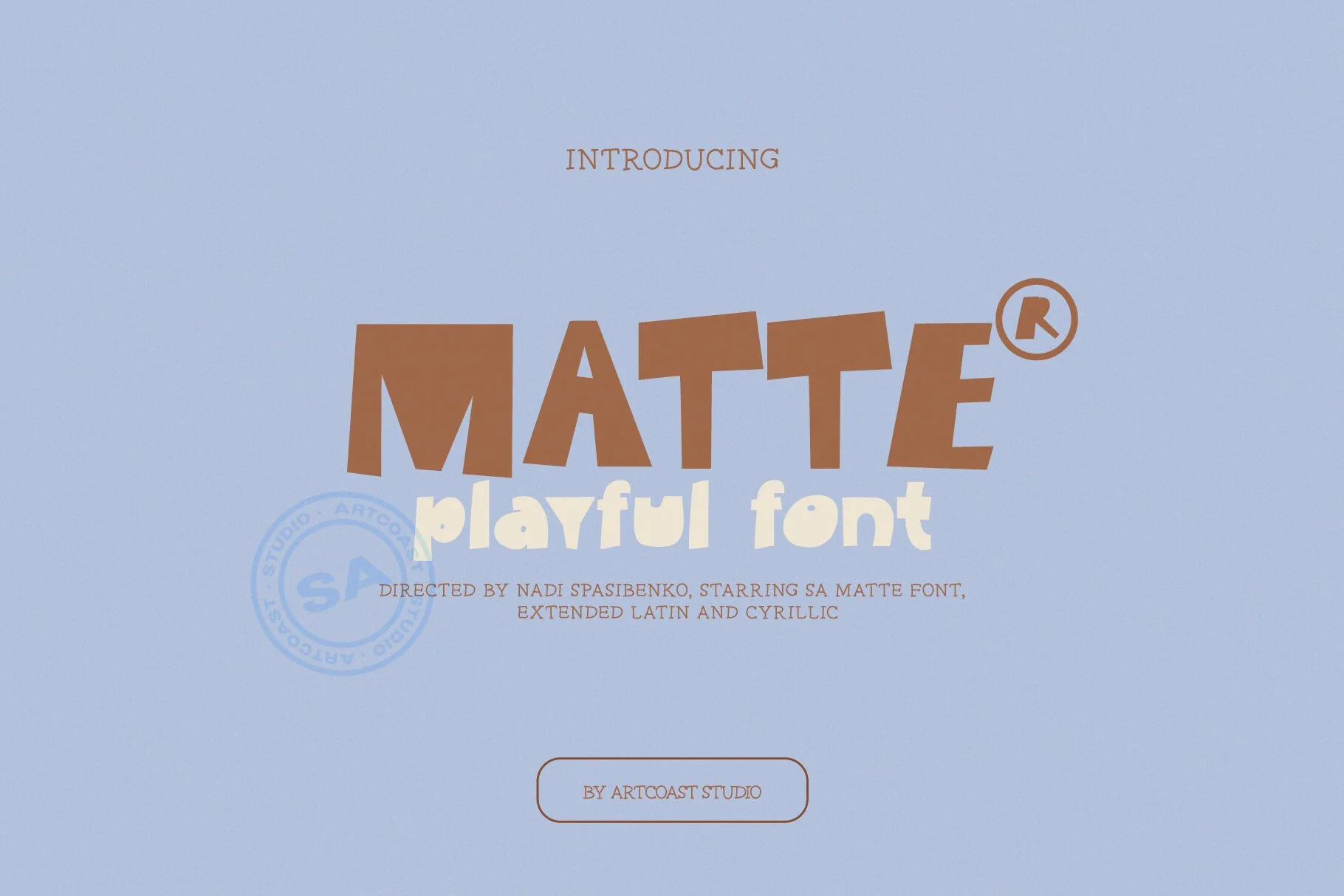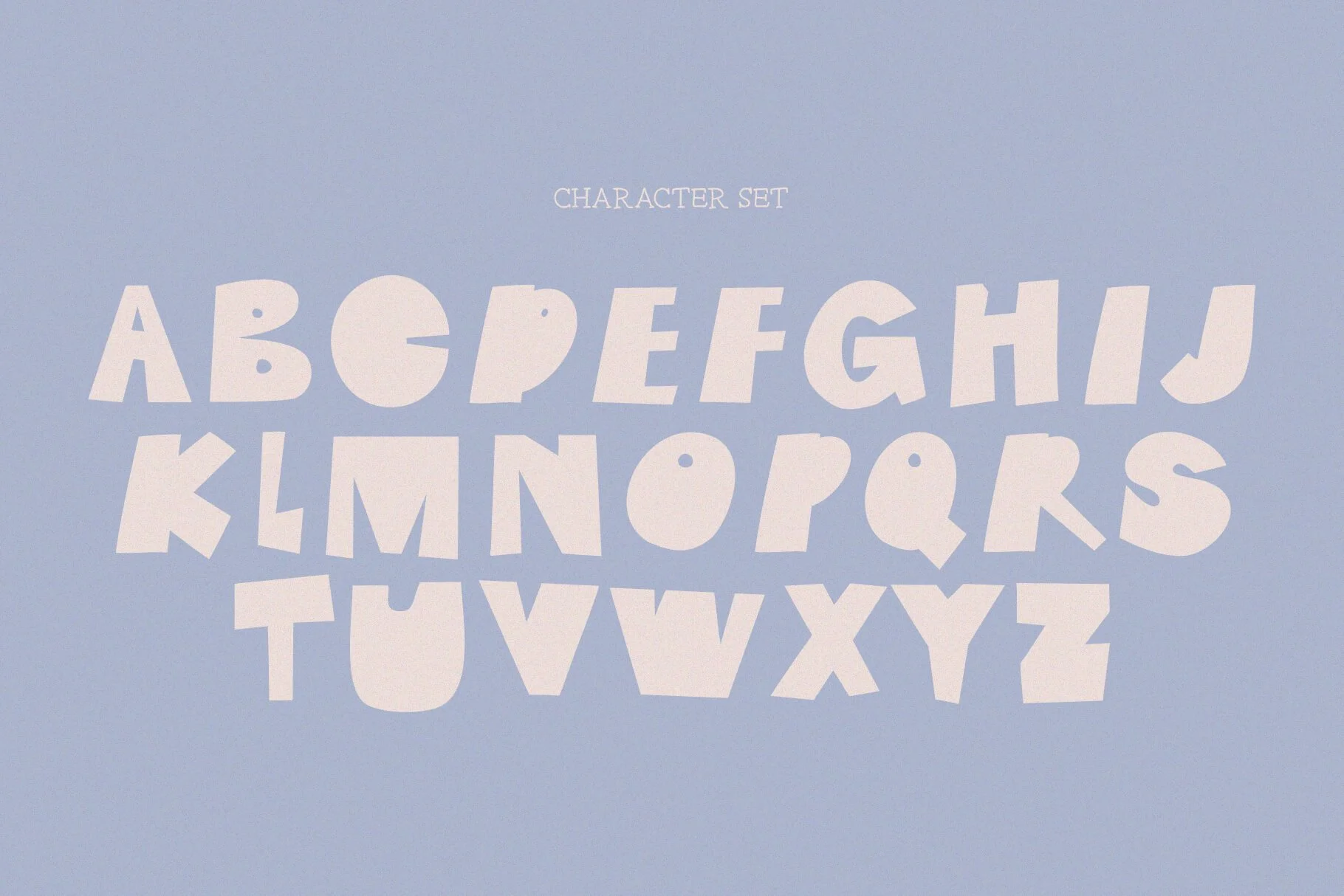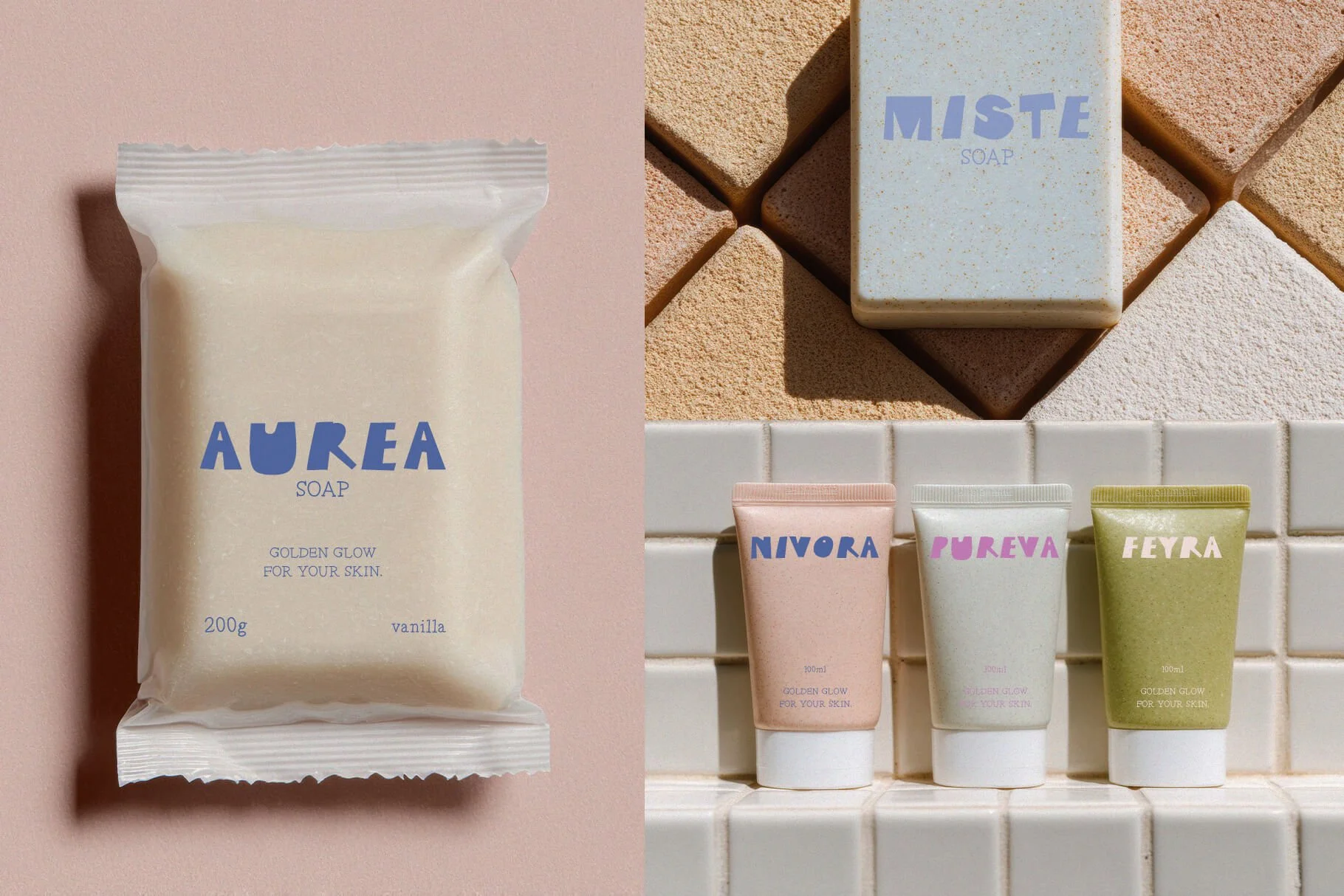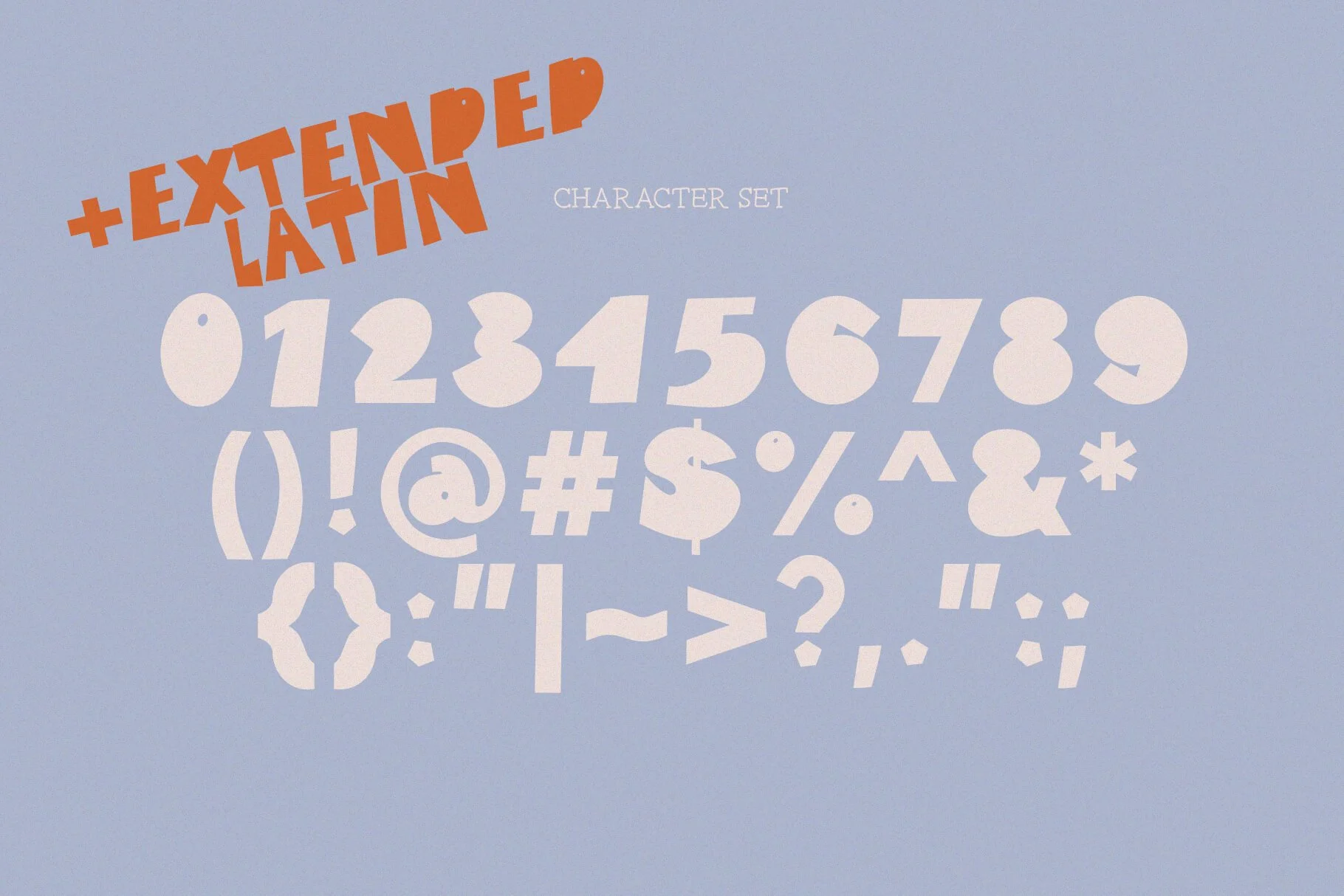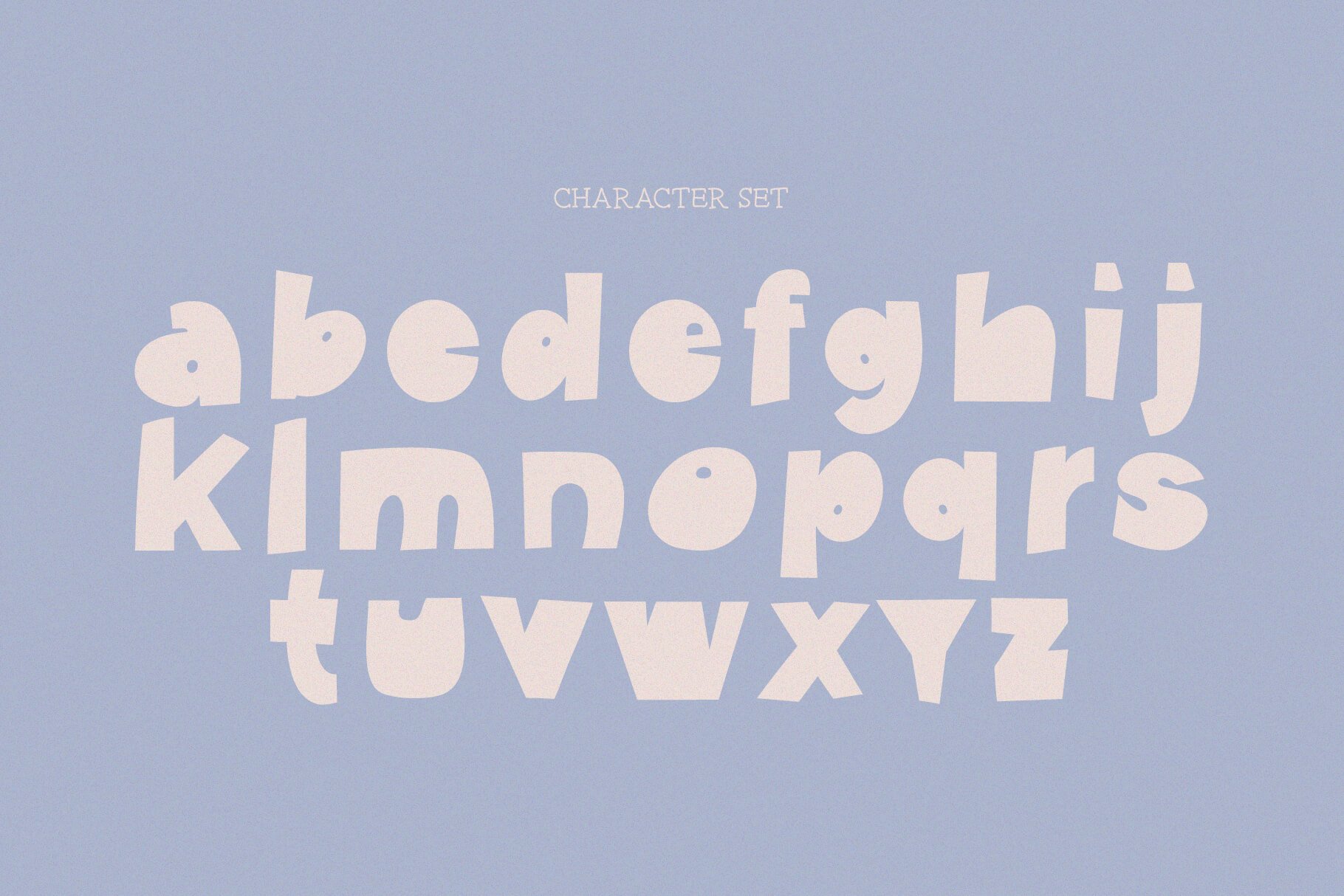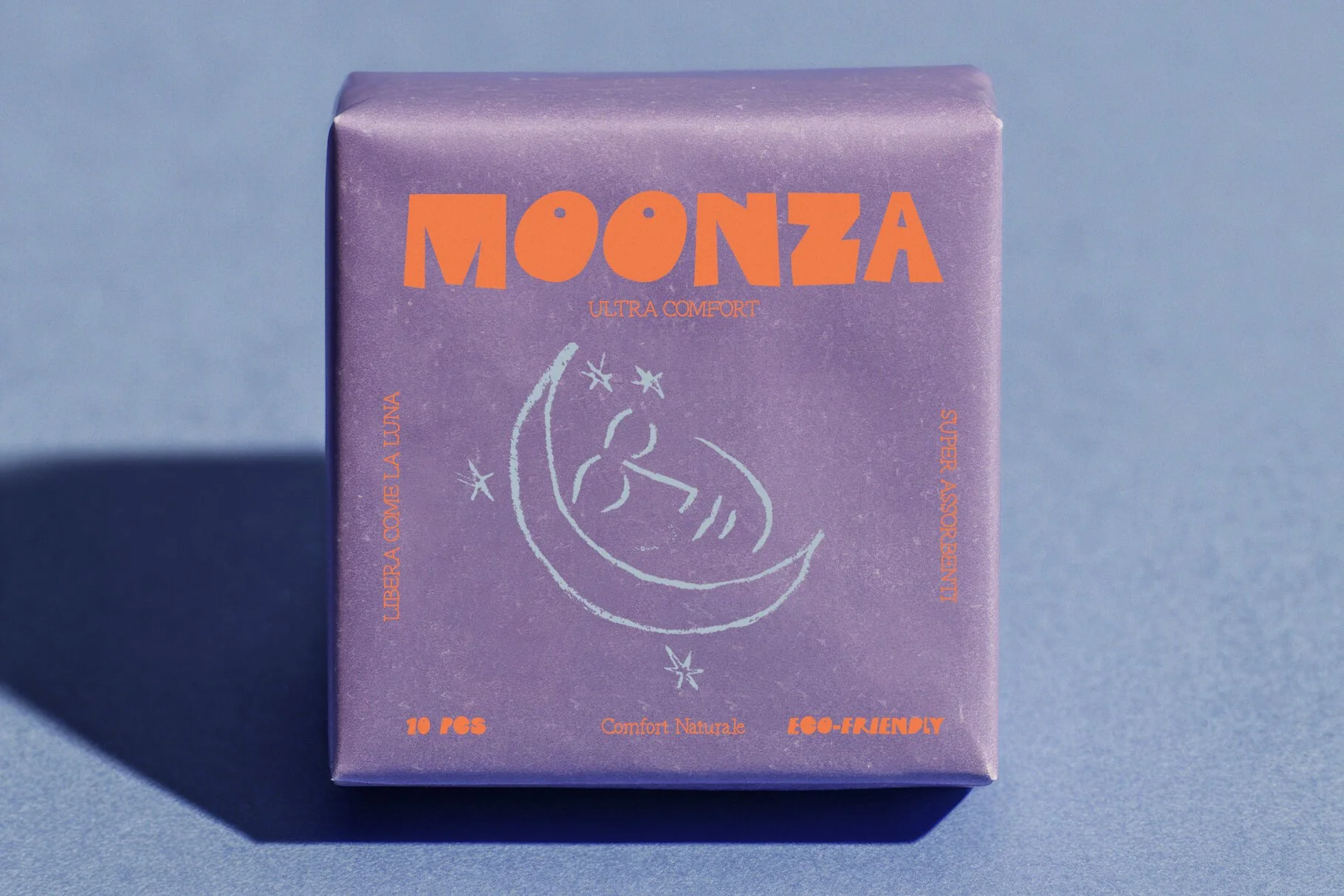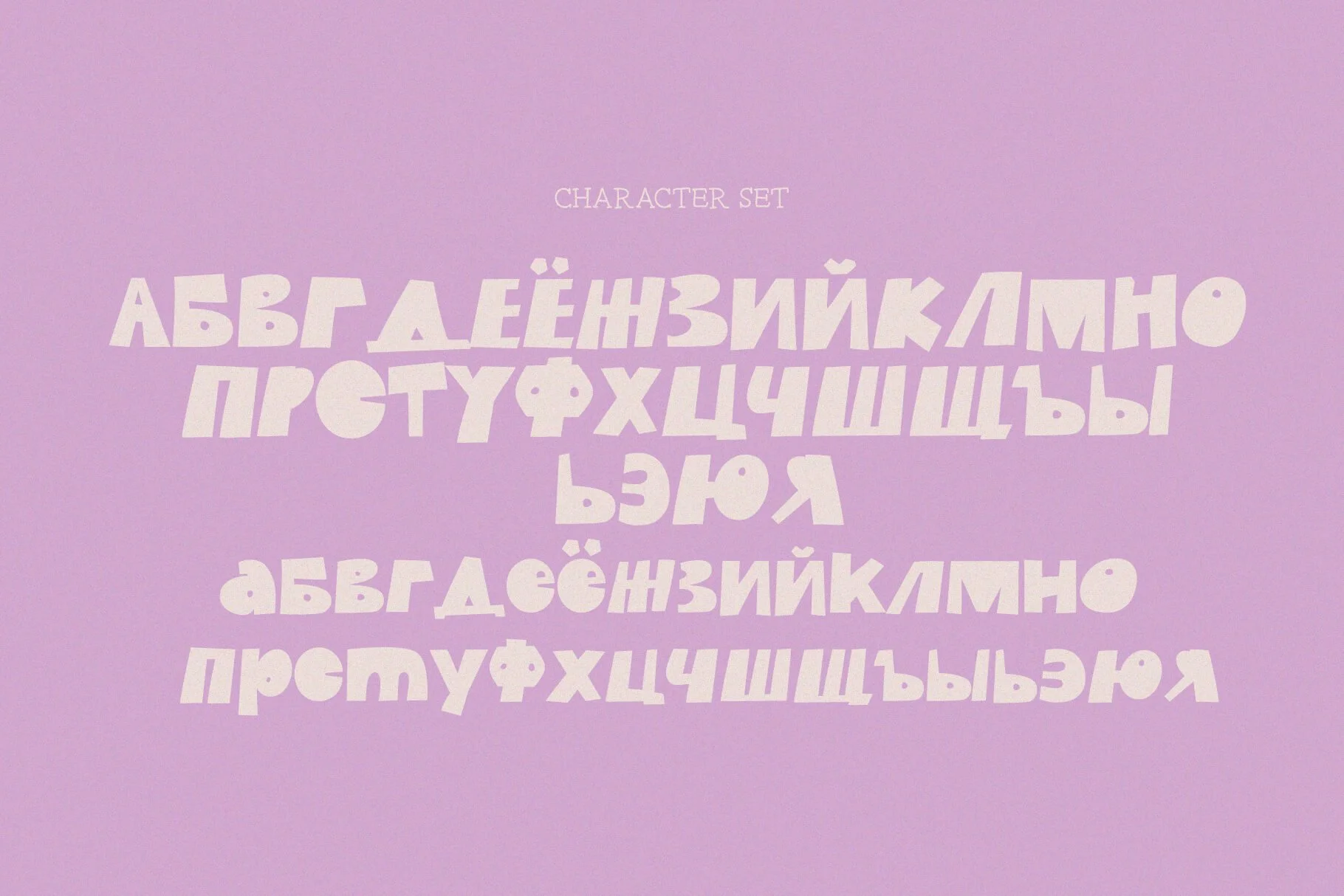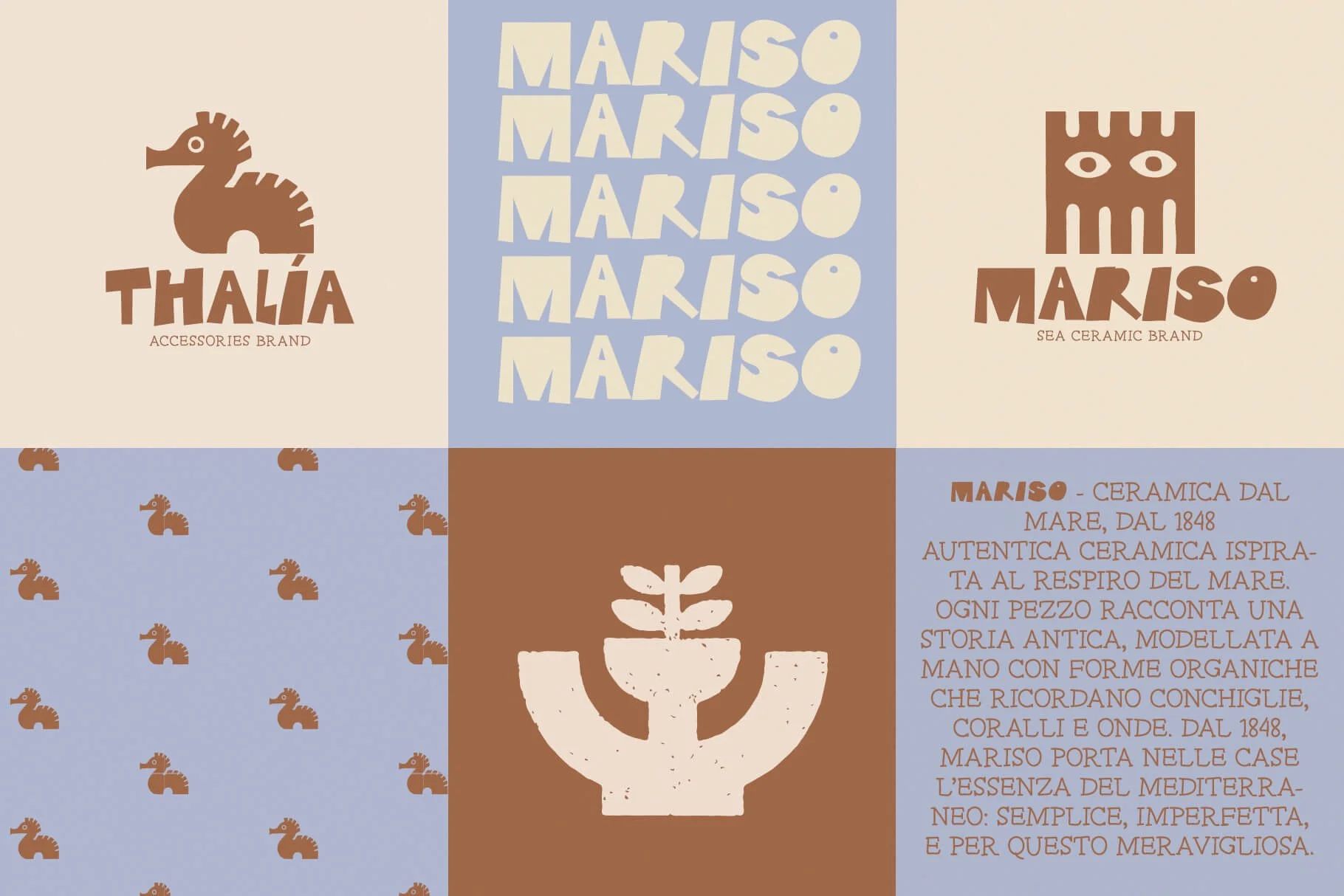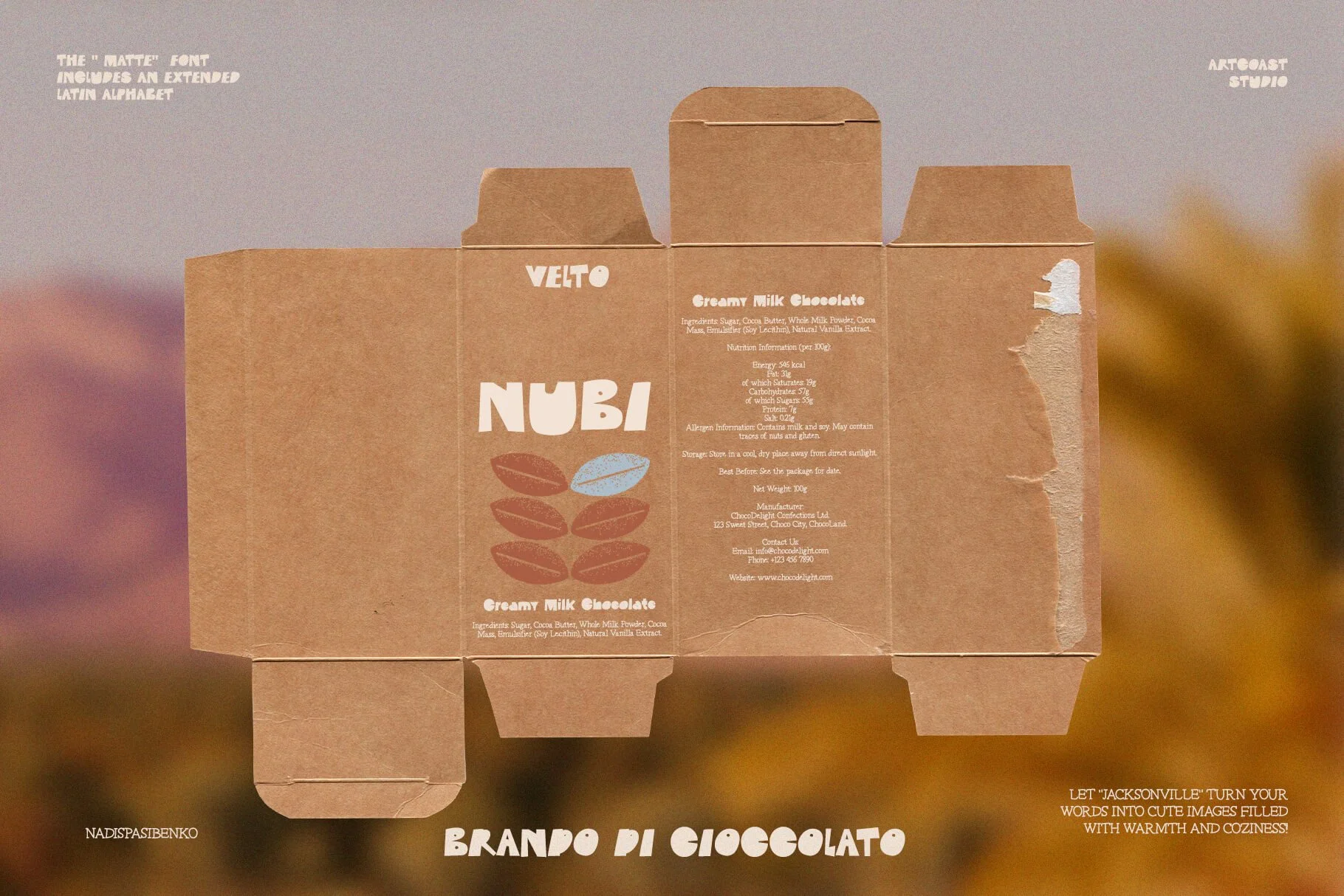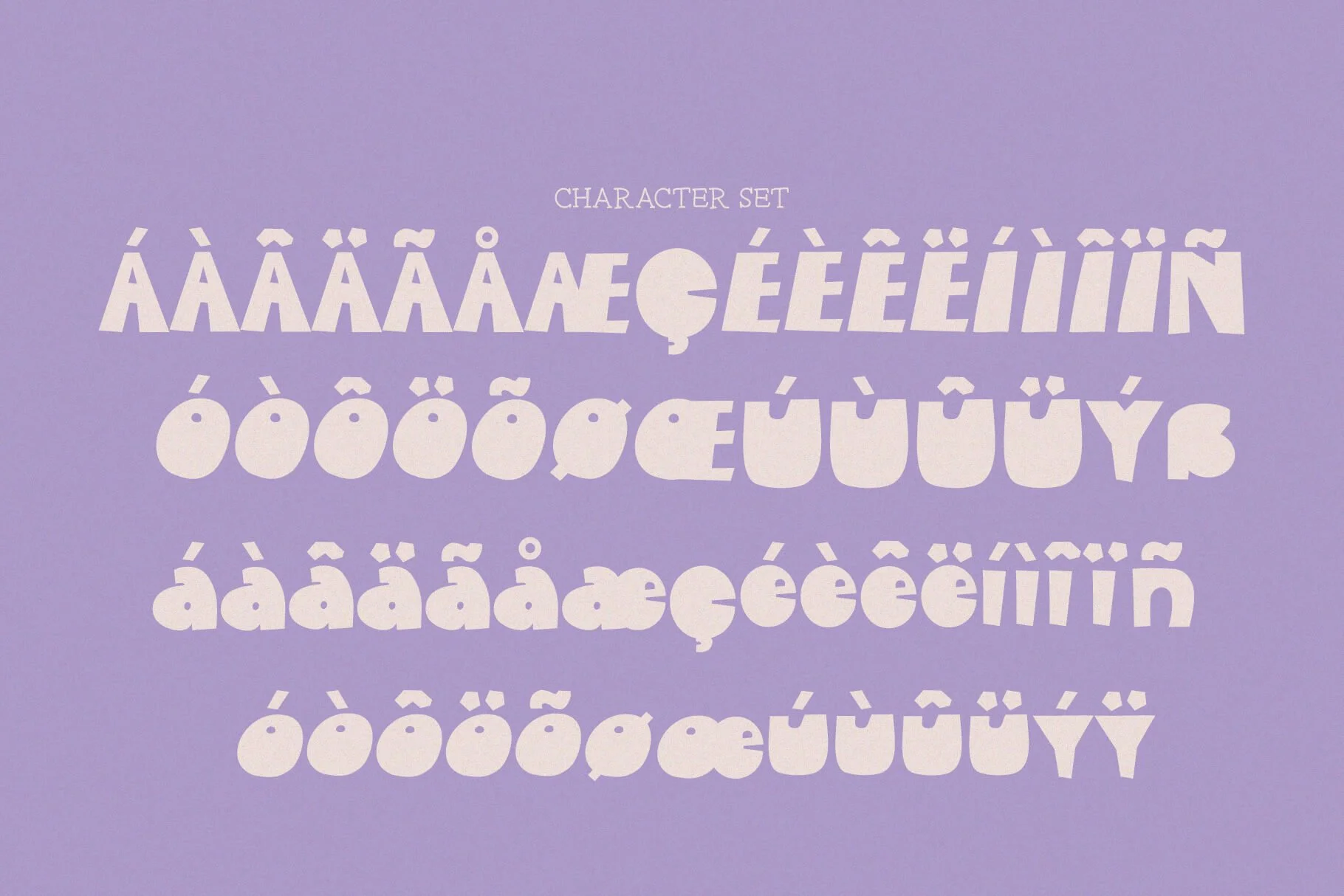
SA Matte Playful Font
Give your designs that "hand-cut" feel without picking up the scissors. Matte is a playful display font inspired by the messy, beautiful world of paper collages. It’s chunky, it’s retro, and it’s designed to make your words pop.
From sticker layouts to bold brand logos, Matte is your new secret weapon for designs that feel authentic and alive.
Full A–Z uppercase and lowercase
Latin Extended characters
Russian Cyrillic
Symbols, numbers & punctuation
Multilingual support